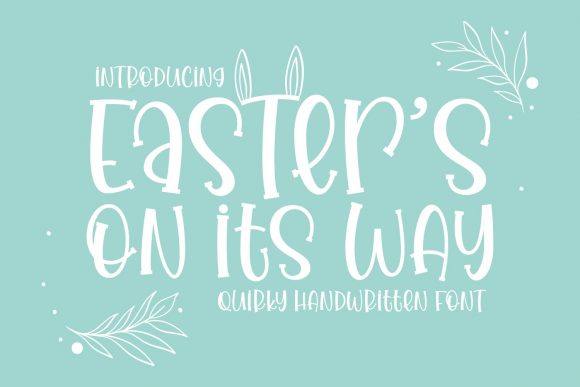
Dive into the world of captivating handwritten letters with Easter’s on Its Way font, a charming display font family brimming with personality. This font bursts with joyous energy, ready to transform your designs into whimsical masterpieces.
Indulge in the playful dance of each character, crafted with a touch of quirkiness that adds a spark of delight to your projects. With Easter’s on Its Way font, you'll create designs that burst with creativity and charm.
Imagine the smiles that will bloom when your audience encounters your designs adorned with this enchanting font. Its cheerful spirit will uplift and engage, making a lasting impression that lingers in their minds.